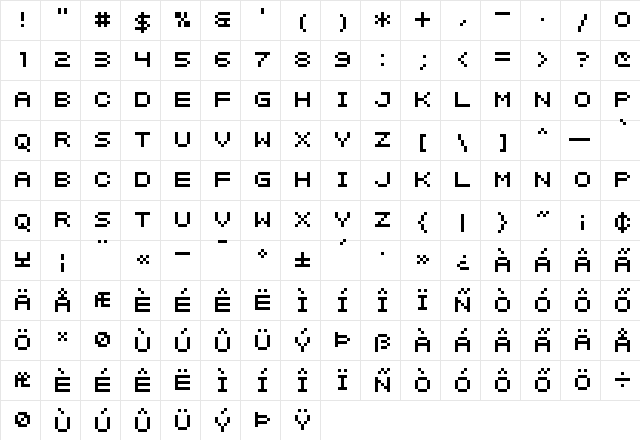
SF Intermosaic Regular
Design Context for SF Intermosaic Typeface
SF Intermosaic is a composed and adaptable typeface that performs quietly and consistently across a wide range of design contexts.